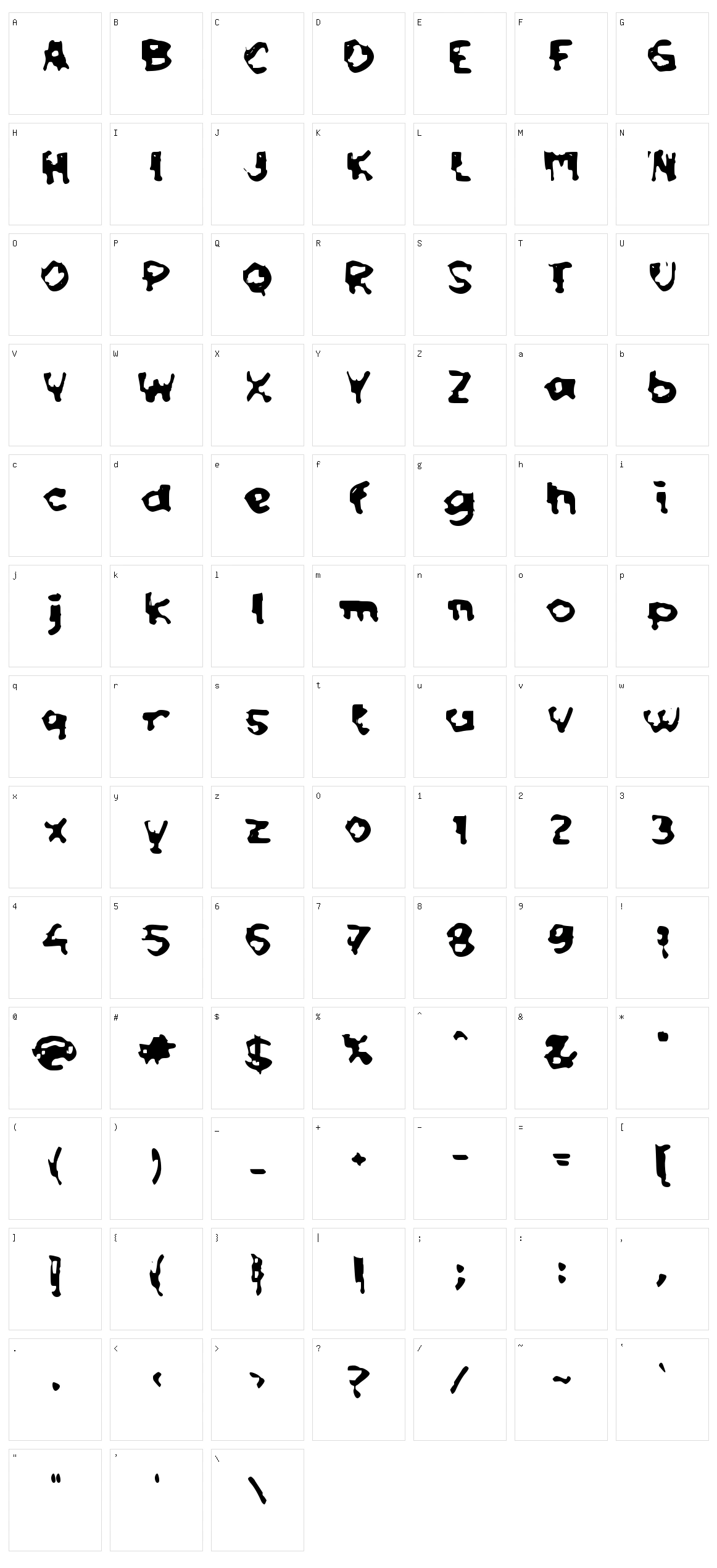
The free font c Chromatic is carefully designed by wep, showcasing a thoughtful balance of creativity and usability and falls under the Eroded font style. When you download the ZIP file, it contains only 16.17 KB of font files, making it lightweight and quick to download. Please review the license details below to understand permitted usage and distribution rights. If license information is not available, we recommend using this font for personal projects only or contacting the author directly for commercial usage permissions.